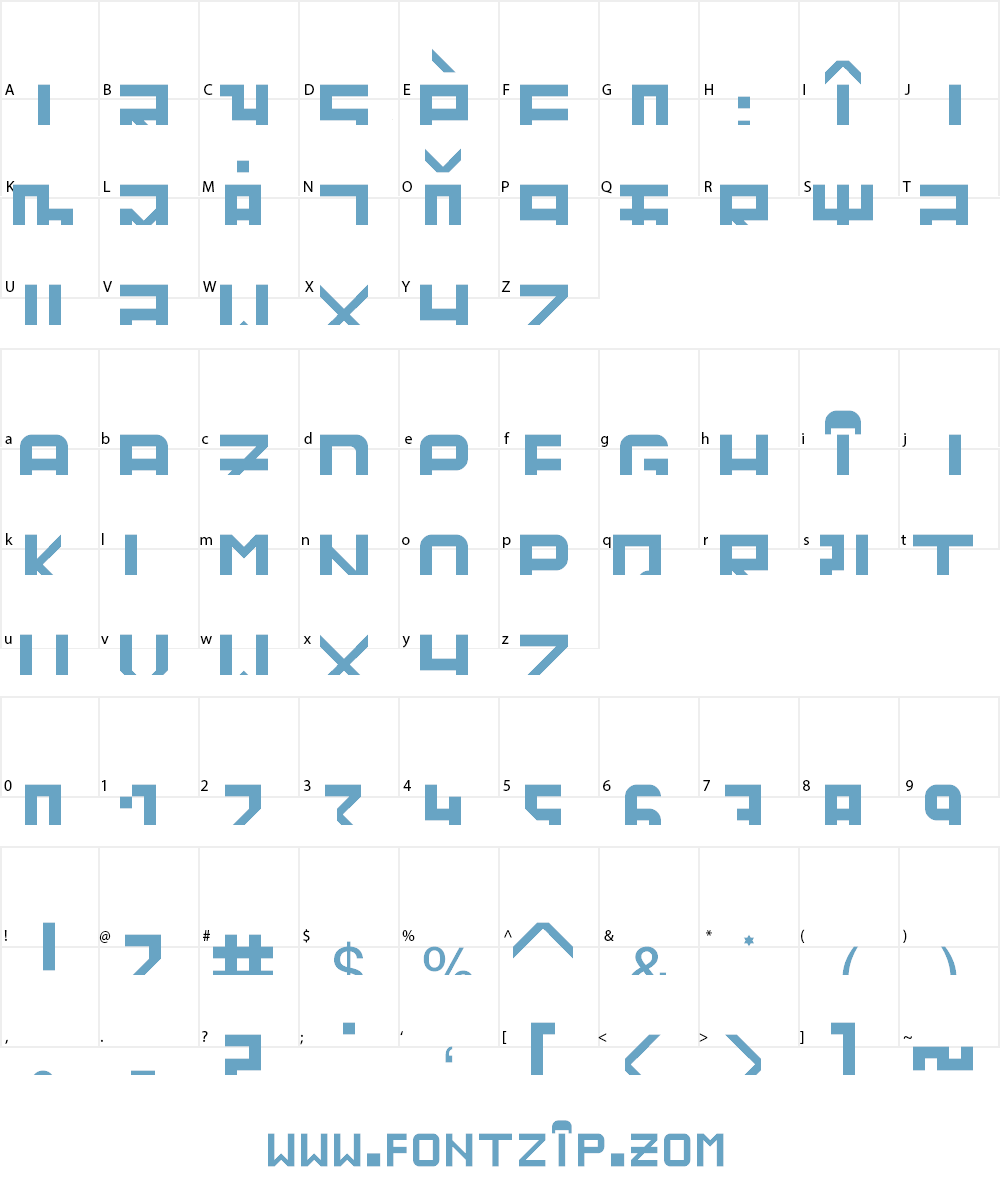
there are no forms for kh,gh,ch,jh,th,bh,ph .... simple and cool check to image for more information
Cemi hinglis Font Sample Character
Cemi  hinglis Font Character